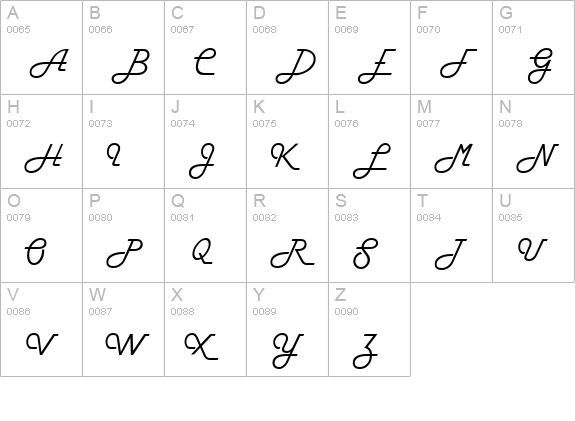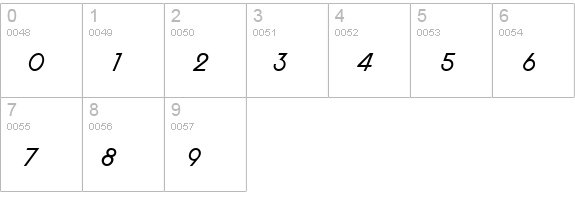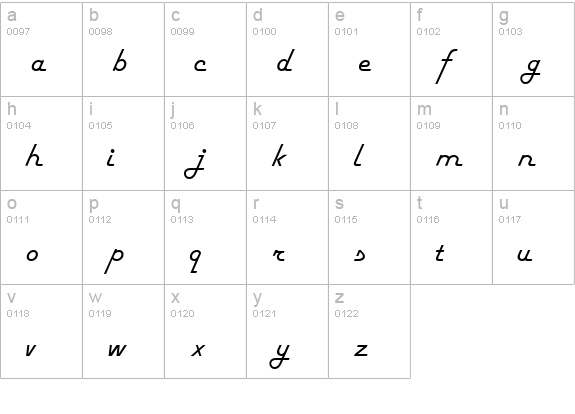
Fifties Regular is the standard, neutral variant in the Fifties typeface family \xE2\x80\x94 well suited to general body text, paragraphs, and standard typographic work.
Fifties Regular font is a classic and timeless typeface that exudes a retro charm reminiscent of the 1950s era. Its bold yet elegant letterforms make it perfect for adding a touch of vintage flair to your designs. The clean lines and geometric shapes give Fifties Regular font a distinct style that is both versatile and eye-catching. Best of all, Fifties Regular font is available for free download at FontsMarket.com. Whether you're working on a nostalgic branding project, a retro poster design, or simply want to add a touch of mid-century style to your work, Fifties Regular font is the perfect choice. Download it today and let your creativity soar with this timeless and freely available typeface.